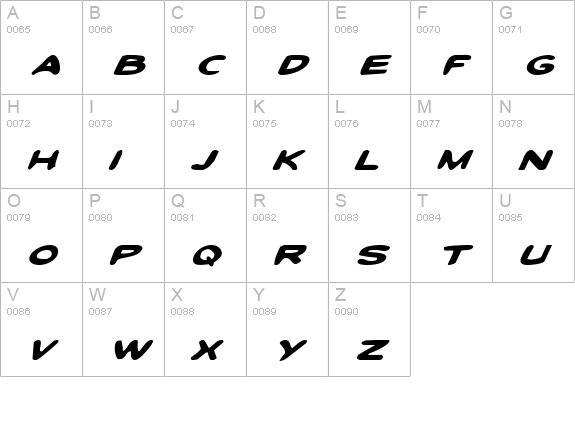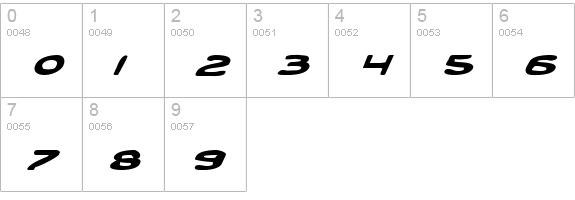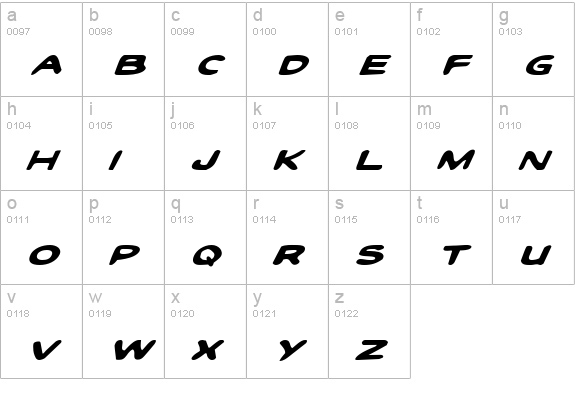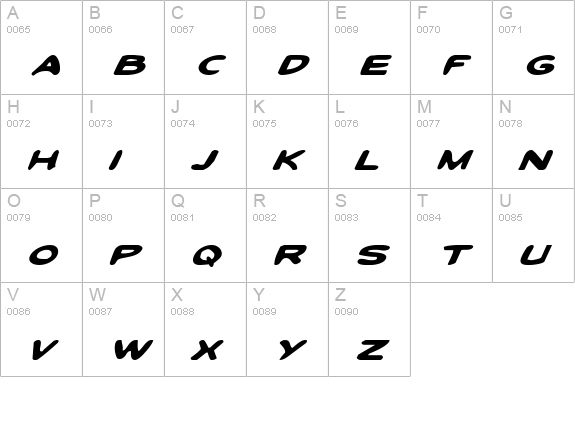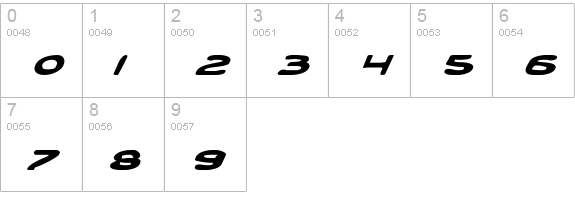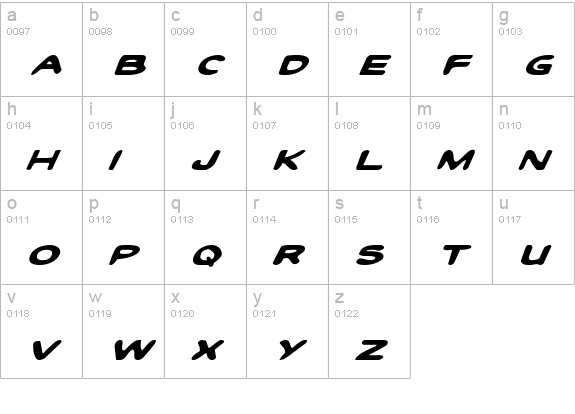
Toon Town Industrial Exp Ital font is a playful and eye-catching typeface that is sure to add a touch of whimsy to any design project. With its unique combination of cartoonish appeal and industrial aesthetic, this font is perfect for capturing attention and conveying a sense of fun. The slanted and exaggerated letterforms of Toon Town Industrial Exp Ital font make it ideal for headlines, logos, posters, and other display purposes. Its bold and dynamic appearance ensures that your message will stand out and leave a lasting impression on viewers. What sets this font apart is not just its delightful design, but also the fact that it is freely available to download at FontsMarket.com. This means that you can bring a touch of Toon Town charm to your projects without any cost or restrictions. Whether you are a professional designer or a hobbyist, this font offers endless creative possibilities without any financial burden. So why wait? Download Toon Town Industrial Exp Ital font today and let your imagination run wild. Whether you are creating a children's book, an advertisement, or a website, this font is sure to add a playful and energetic vibe to your designs. Don't miss out on this incredible opportunity to enhance your projects with a free and captivating typeface.